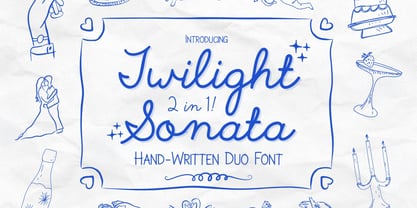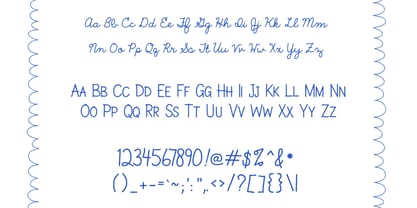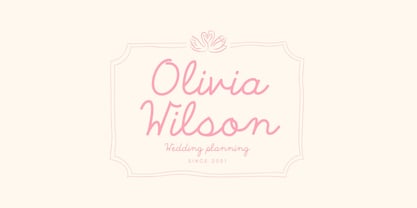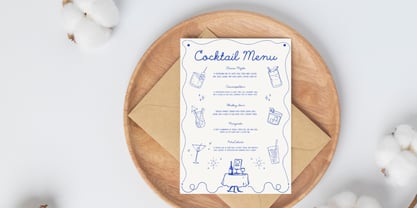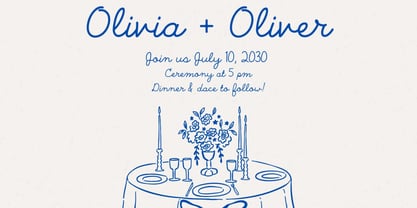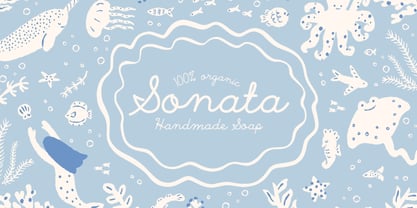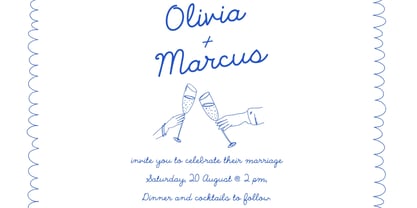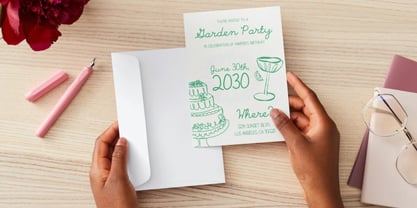
Twilight Sonata
by Hipfonts
The Twilight Sonata Font Family was designed by Igor Ovsyannykov and published by Hipfonts. Twilight Sonata contains 2 styles and family package options. More about this family
Step into a world where elegance meets enchantment. Twilight Sonata is a magical handwritten font duo that pairs a charming script with a playful sans-serif, crafted to bring your most delightful designs to life.
Whether you're designing a wedding invitation under the stars, a cozy café menu, or a brand with heart and personality, Twilight Sonata lets you mix and match its two styles effortlessly. The script flows like a melody, while the sans brings balance with a sweet, modern touch.
From fairytale-inspired stationery to Instagram quotes that sparkle, this font duo is as adorable as it is versatile. It’s your go-to choice for creating designs that feel heartfelt, unique, and absolutely unforgettable.